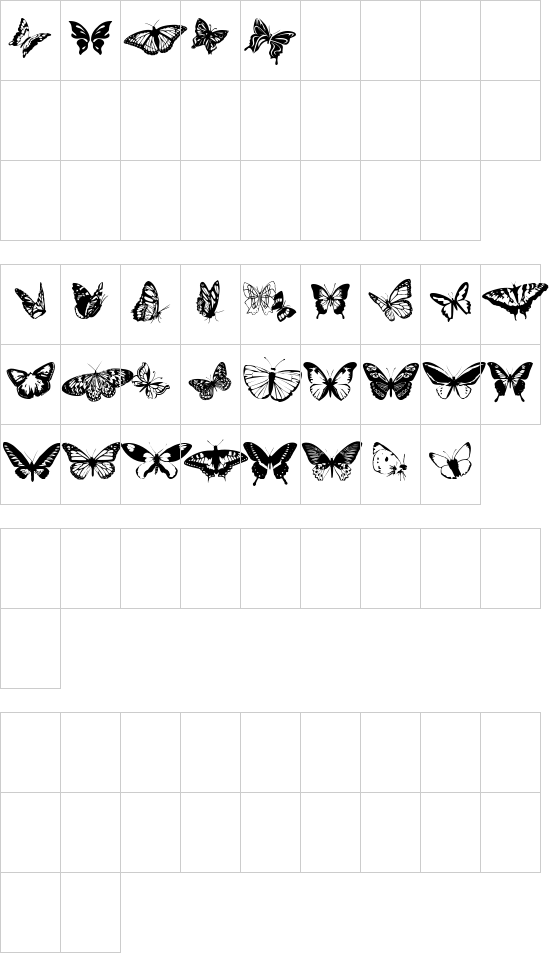
Butterflies
About Butterflies
Butterflies is an animal dingbat font filled with butterfly and insect picture glyphs in place of letters. Each key drops in a delicate winged graphic, giving you a set of nature motifs ready to use as decoration.
Those symbols work for nature graphics, wedding accents, sticker sheets, and pretty social media art. Butterflies is free to download as a TrueType file, and you can preview it by typing across the keyboard to see which butterfly glyphs appear before placing them.